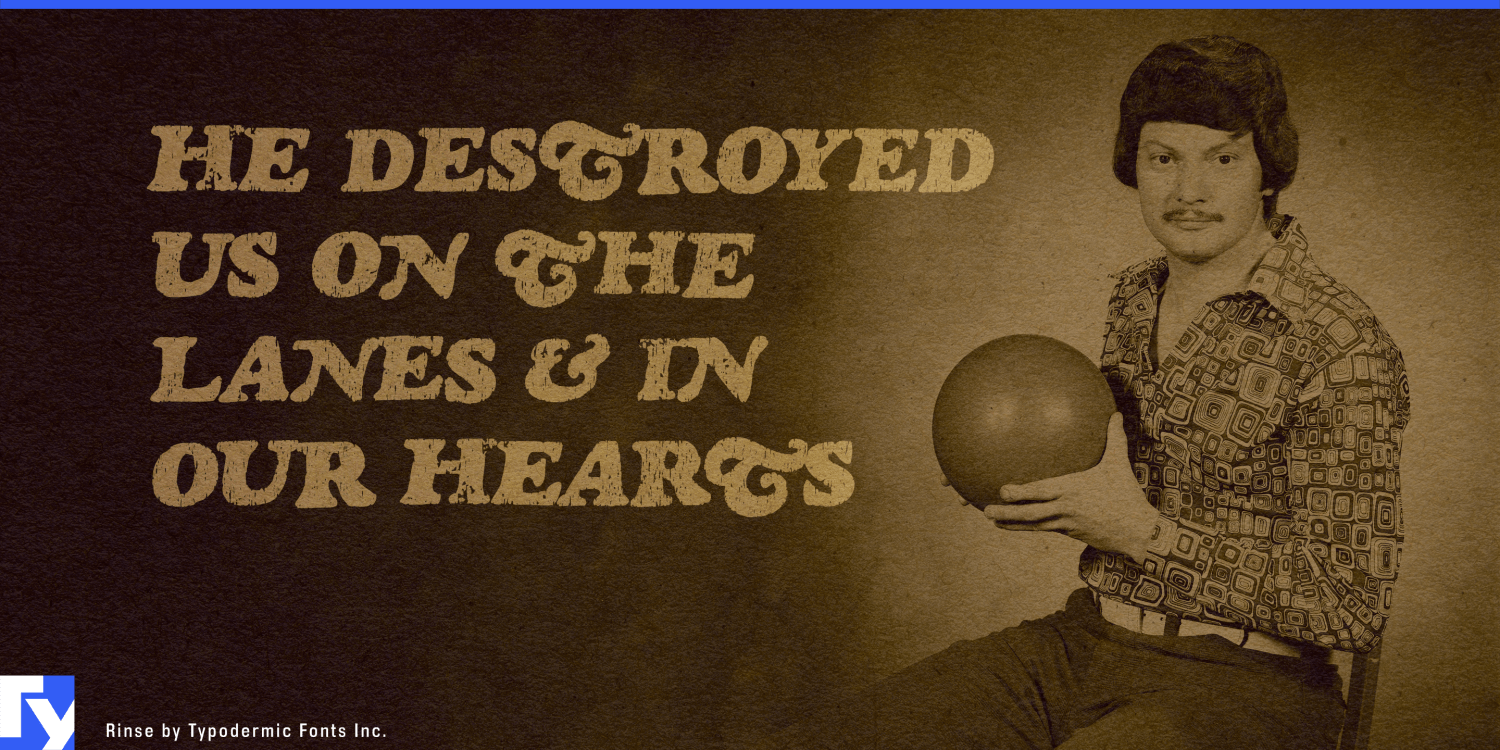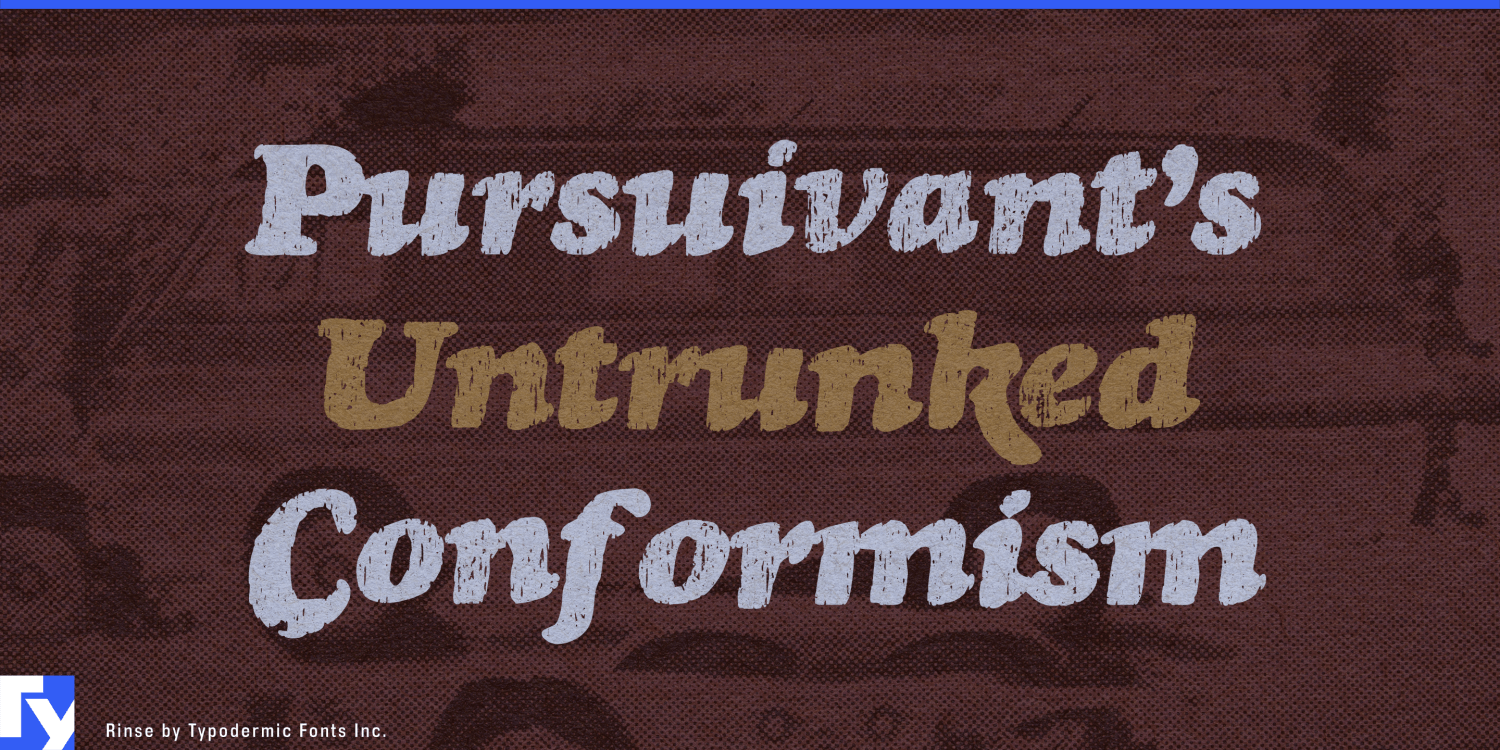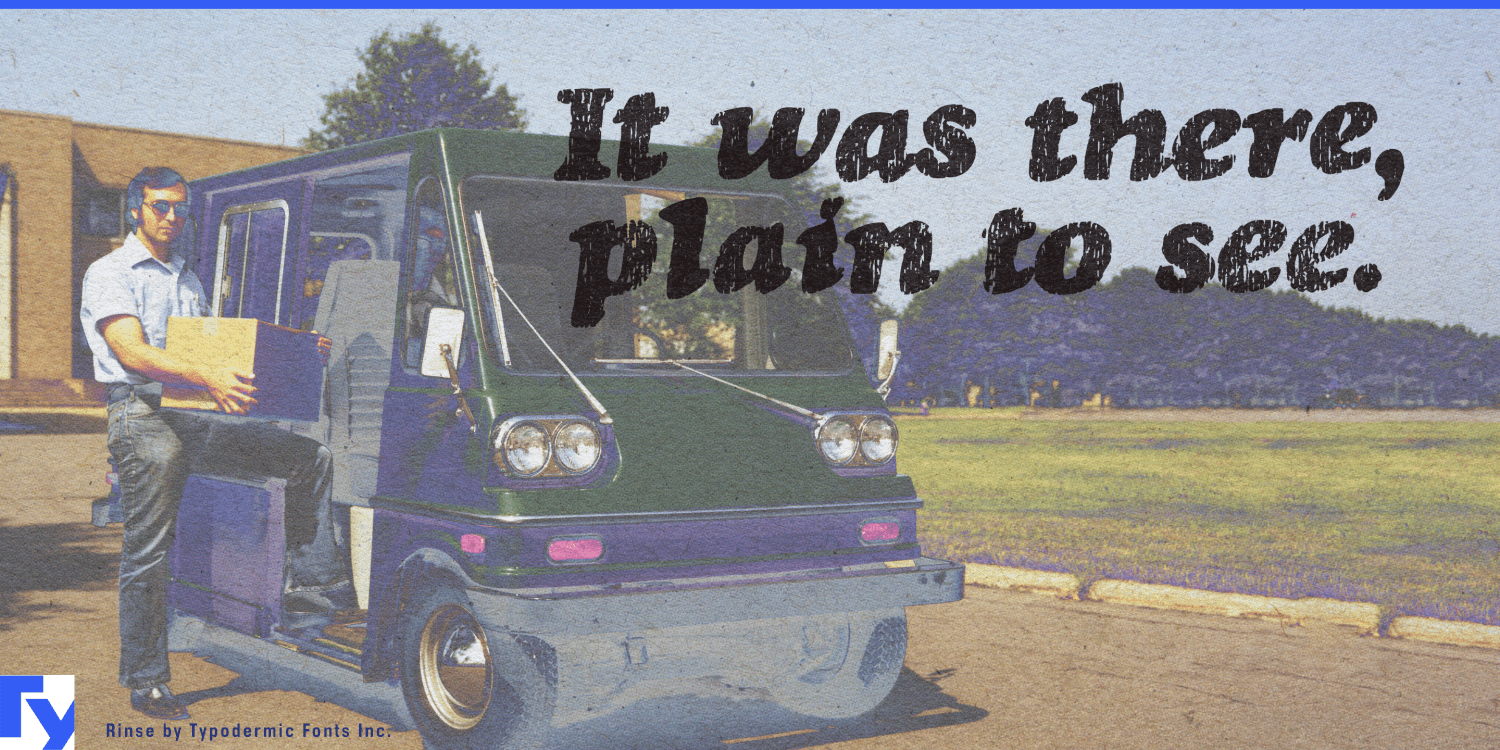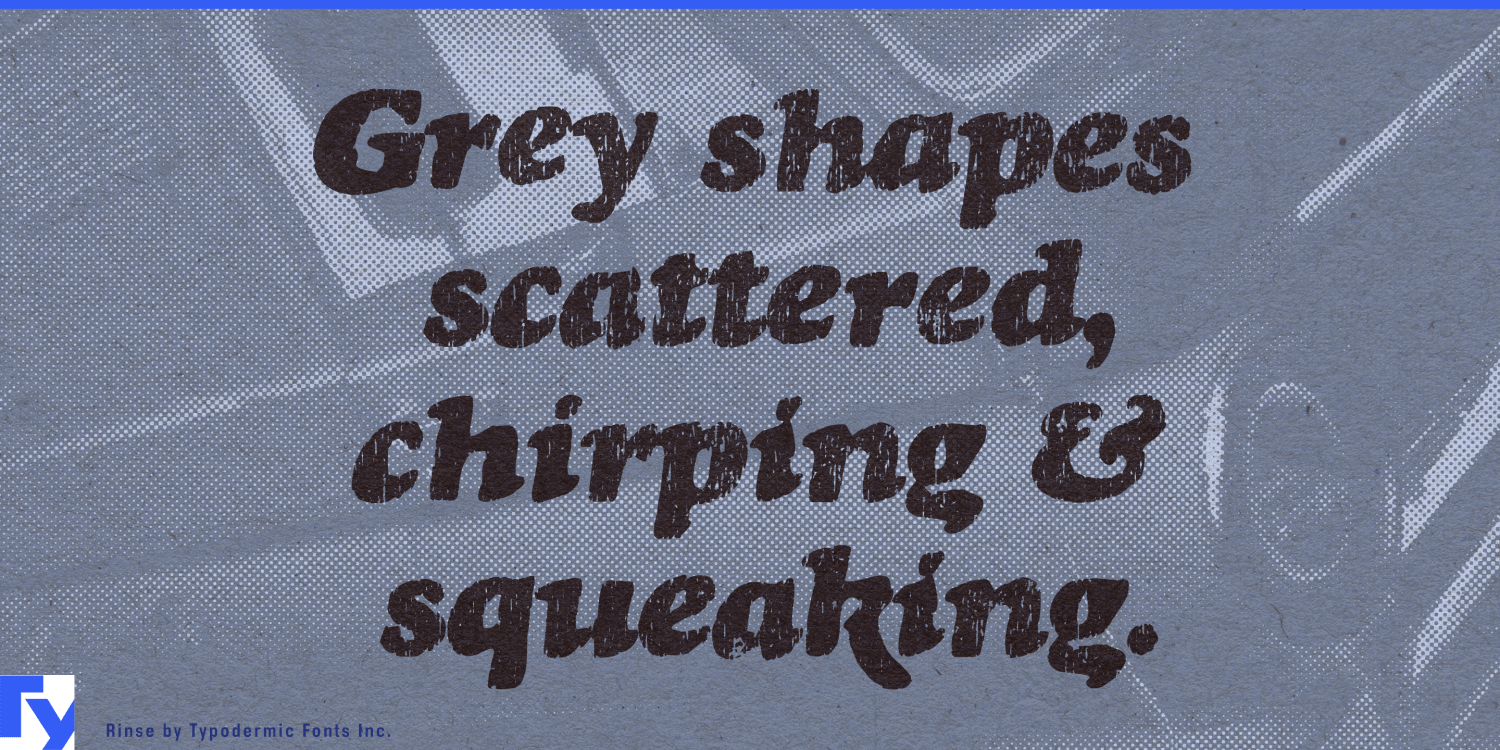
About Rinse
Kick back and chill with Rinse, the typeface that’s all about keeping it cool and casual. Inspired by the laid-back spirit of vintage tees, Rinse takes the classic Goudy Heavyface Italic and gives it a groovy makeover that’ll make your designs…